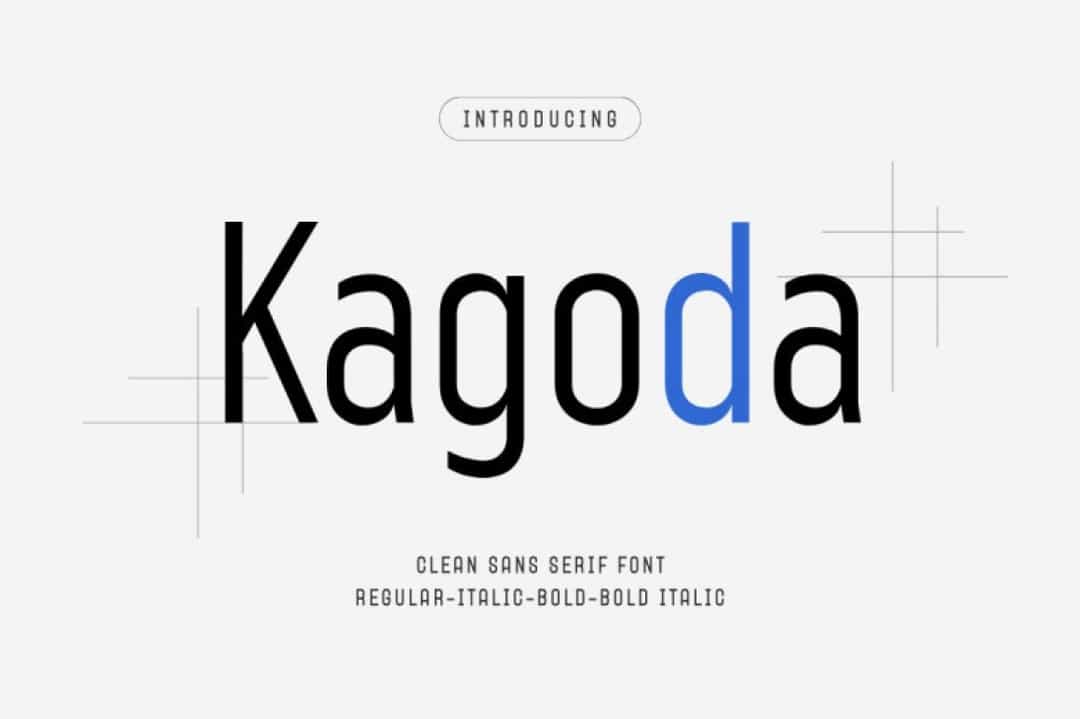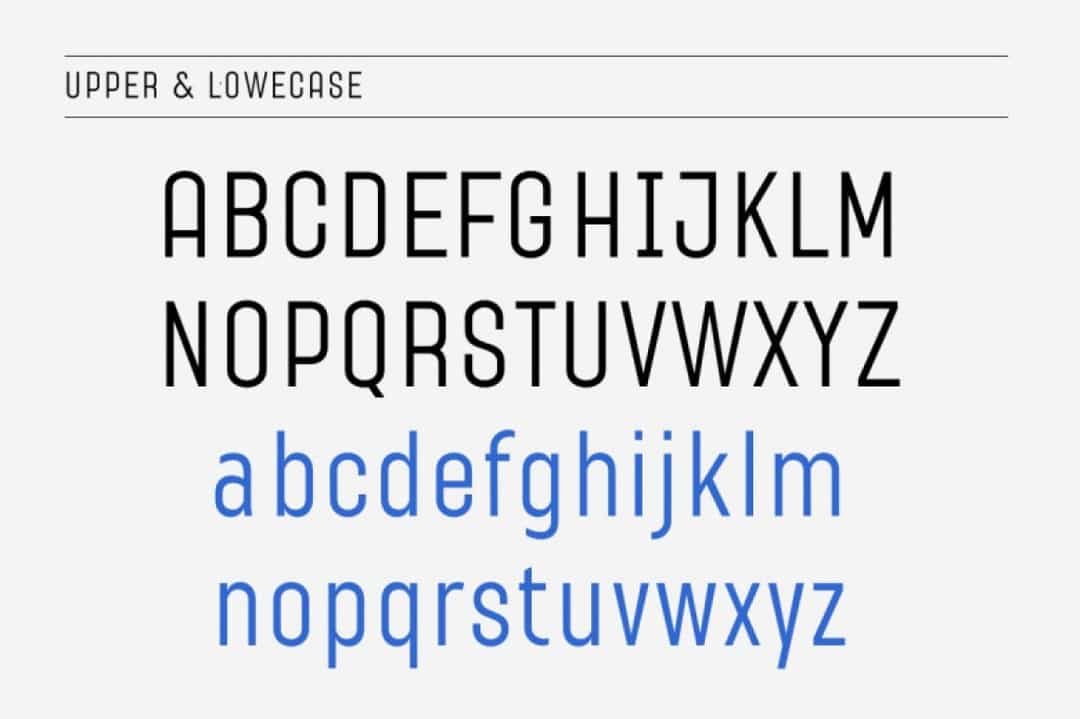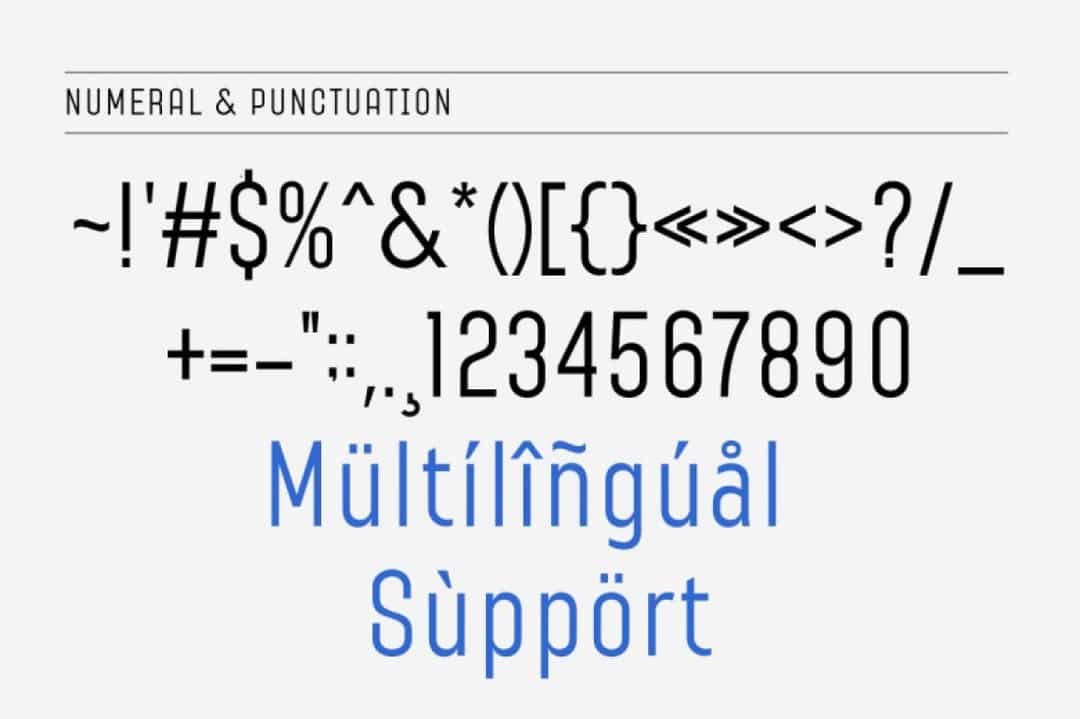
Meet “Kagoda” a clean and modern sans serif font that embodies the principles of sophistication. Distinguished by a semi-condensed structure, “Kagoda” will suit any project that requires the application of a stylish and rather modern font. Comprising of four styles namely, Regular, Italic, Bold, and Bold Italic, this font is a creative solution for your projects in branding, publications, or display graphics. Step up your creativity with the simplicity of “Kagoda”.